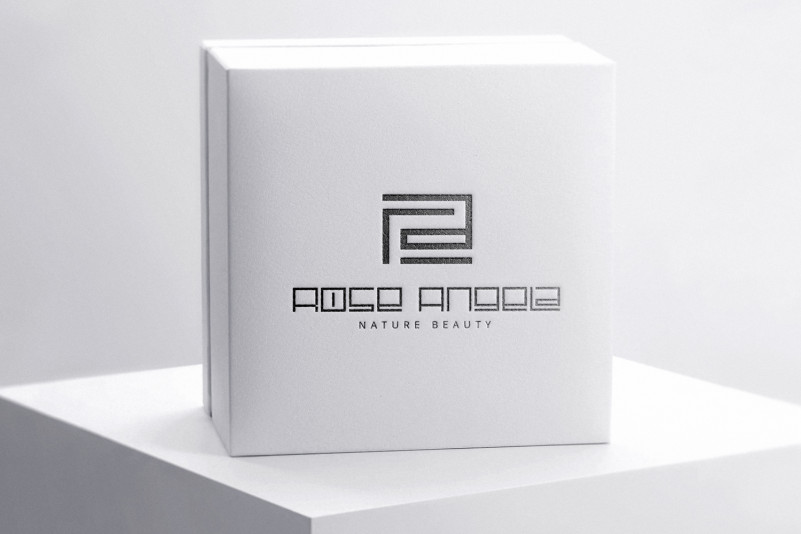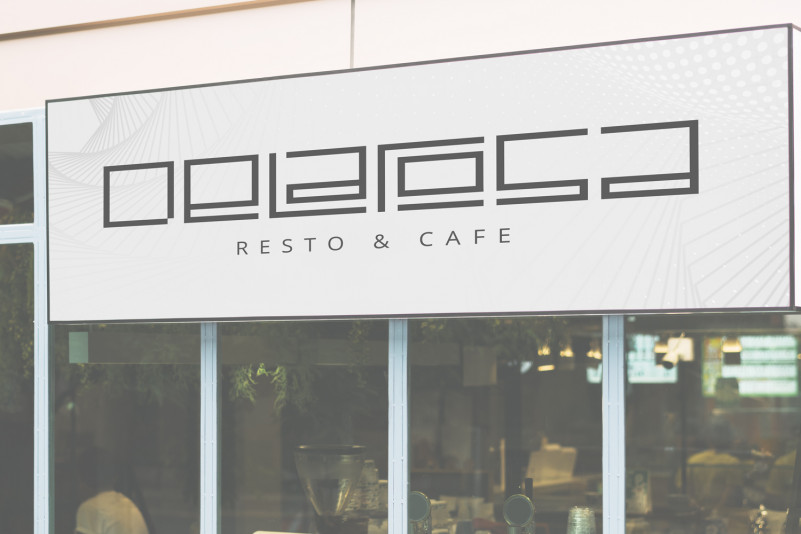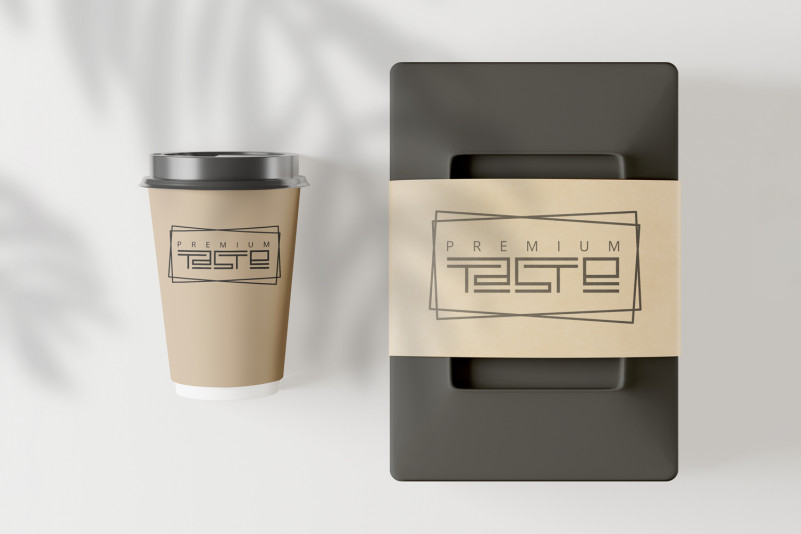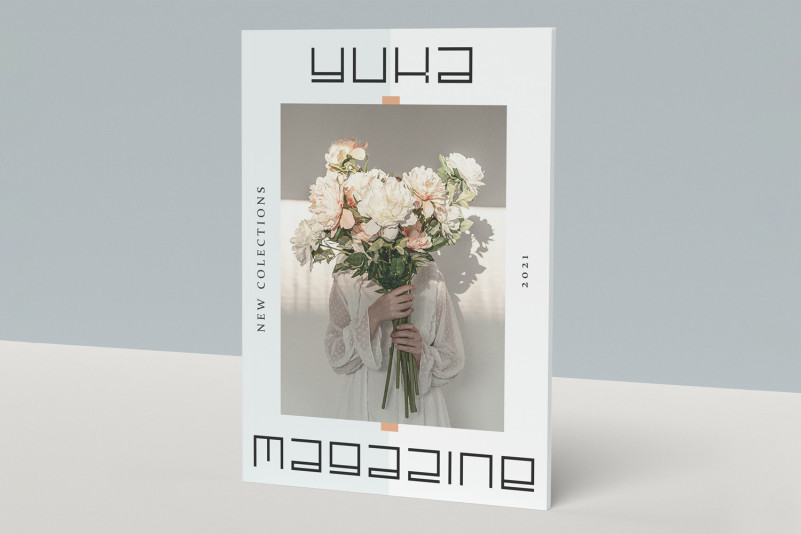
Boost Display Font
This is a luxury display font with authentic and casual feels. It will be perfectly used for Branding, Logo Design, Lettering, Logotype, Clothing, Poster, magazine, packaging, posters, shopping bags, t-shirts, book covers, photography, special events and other design project.